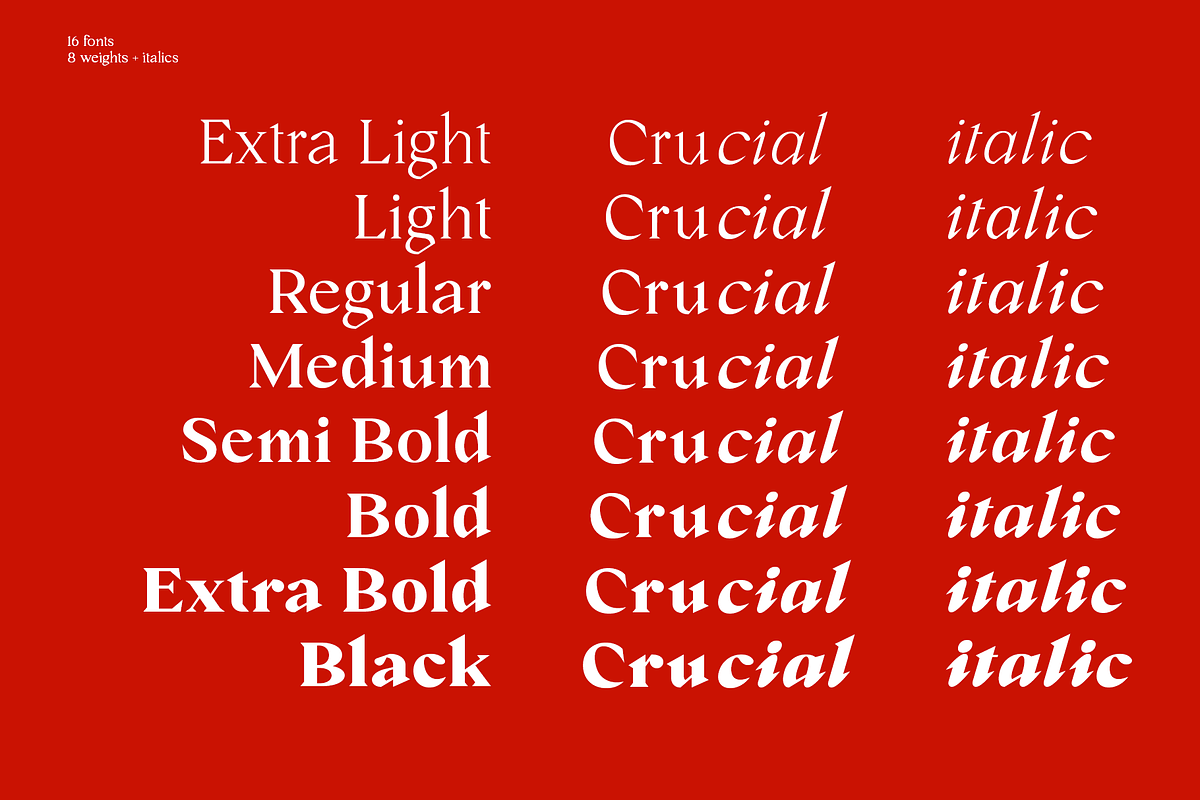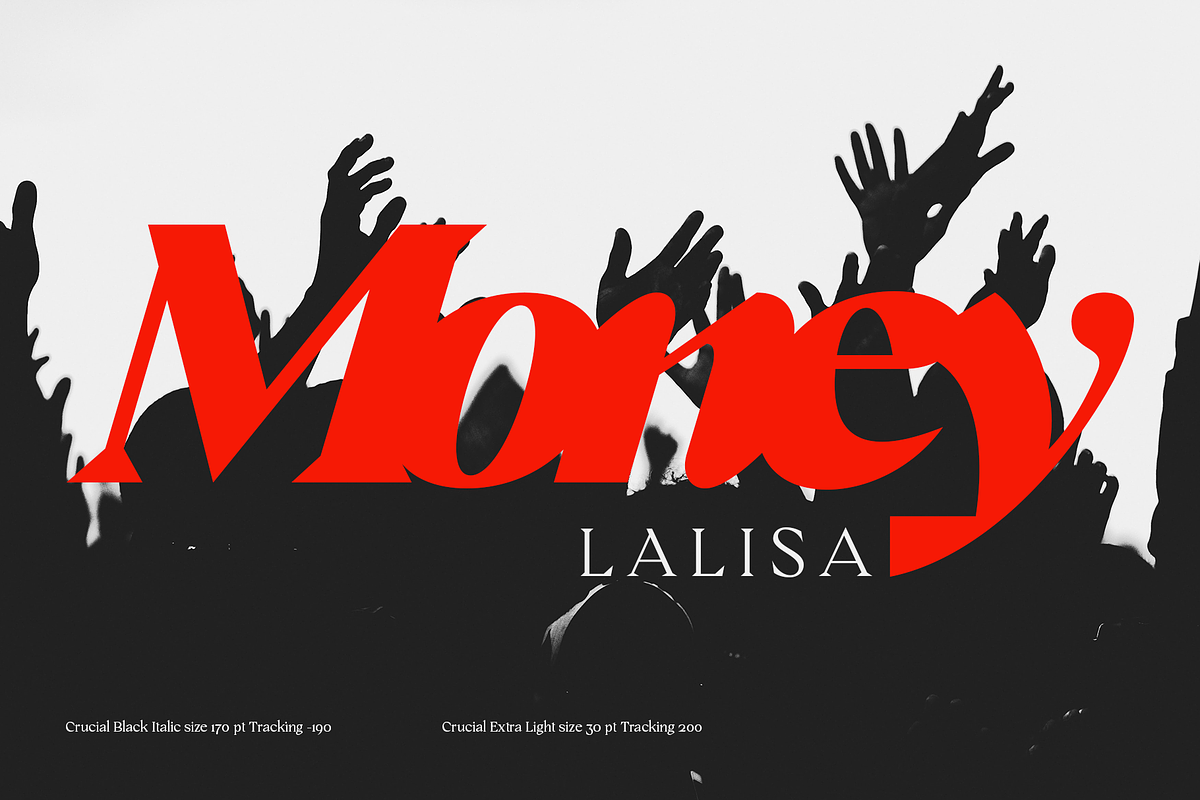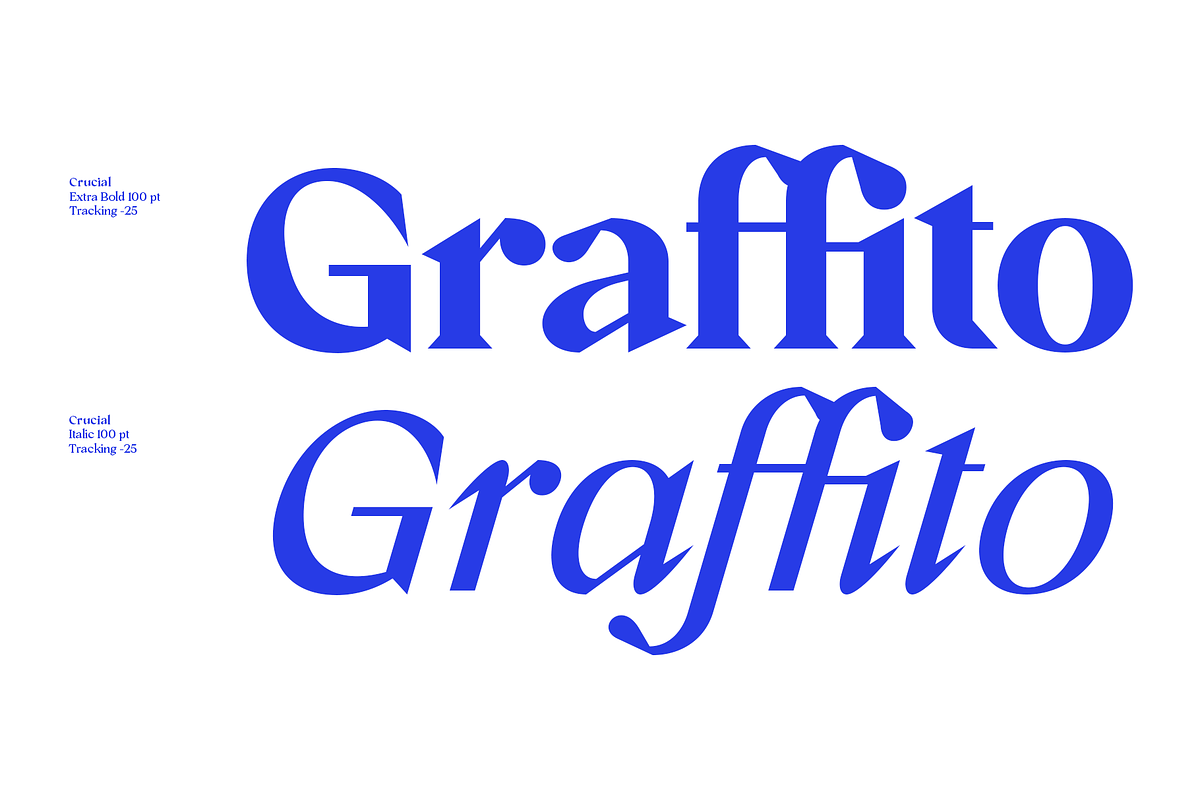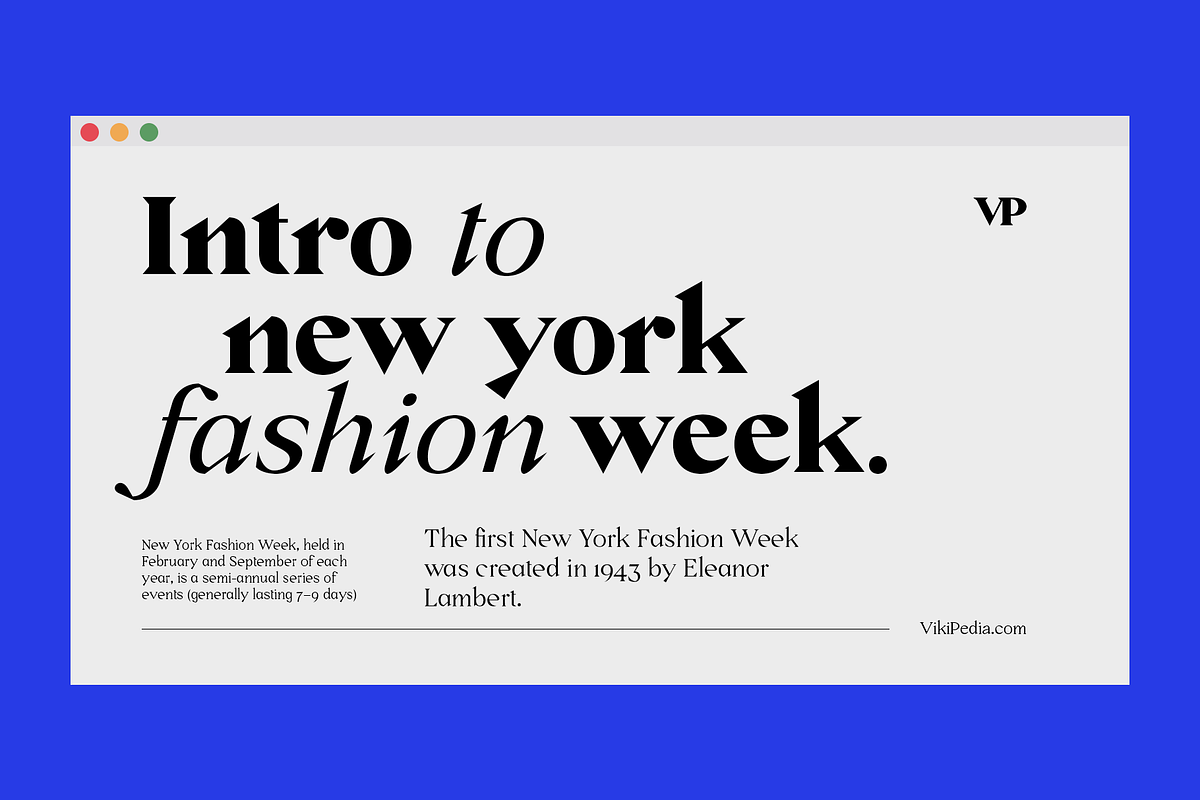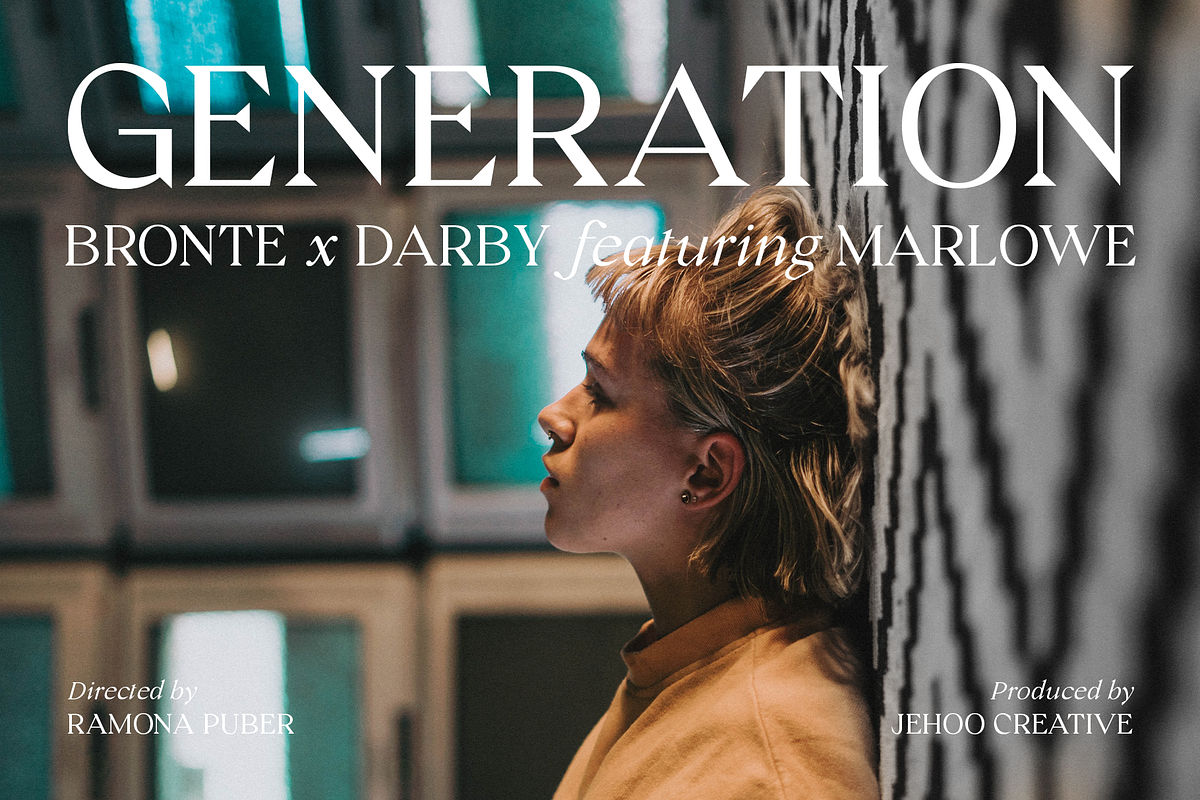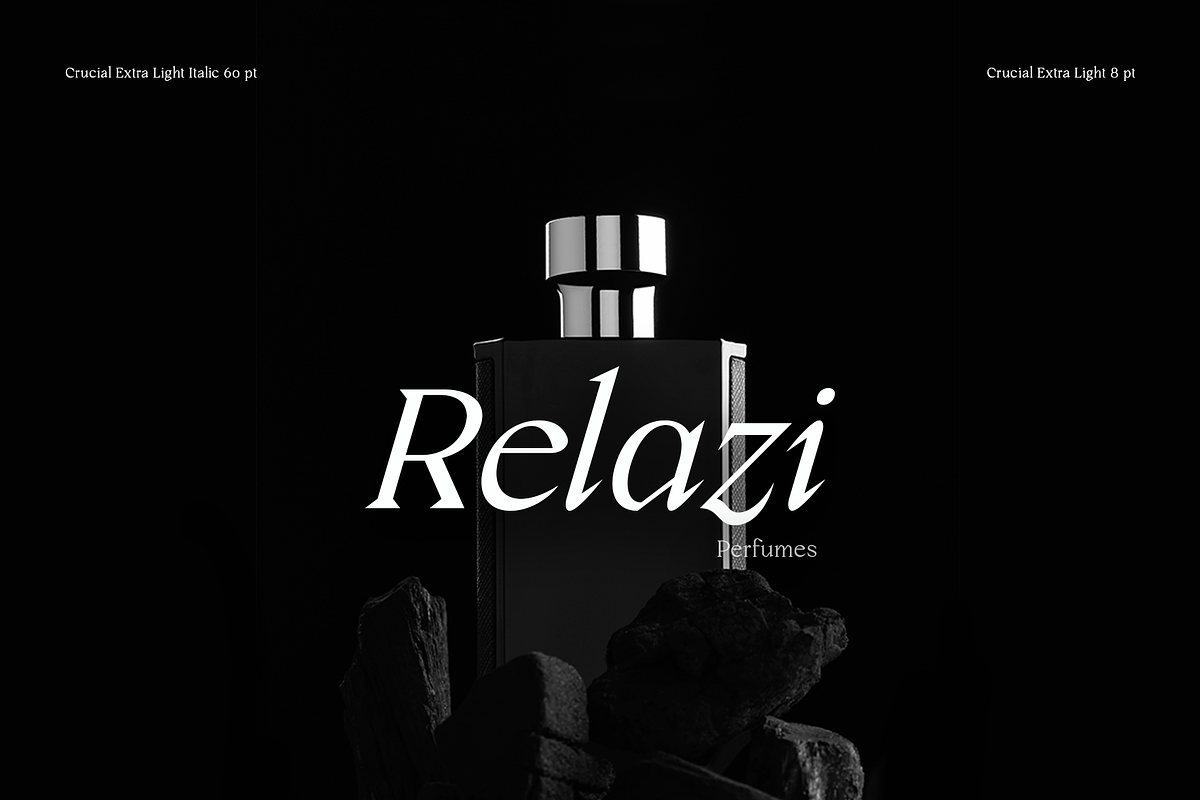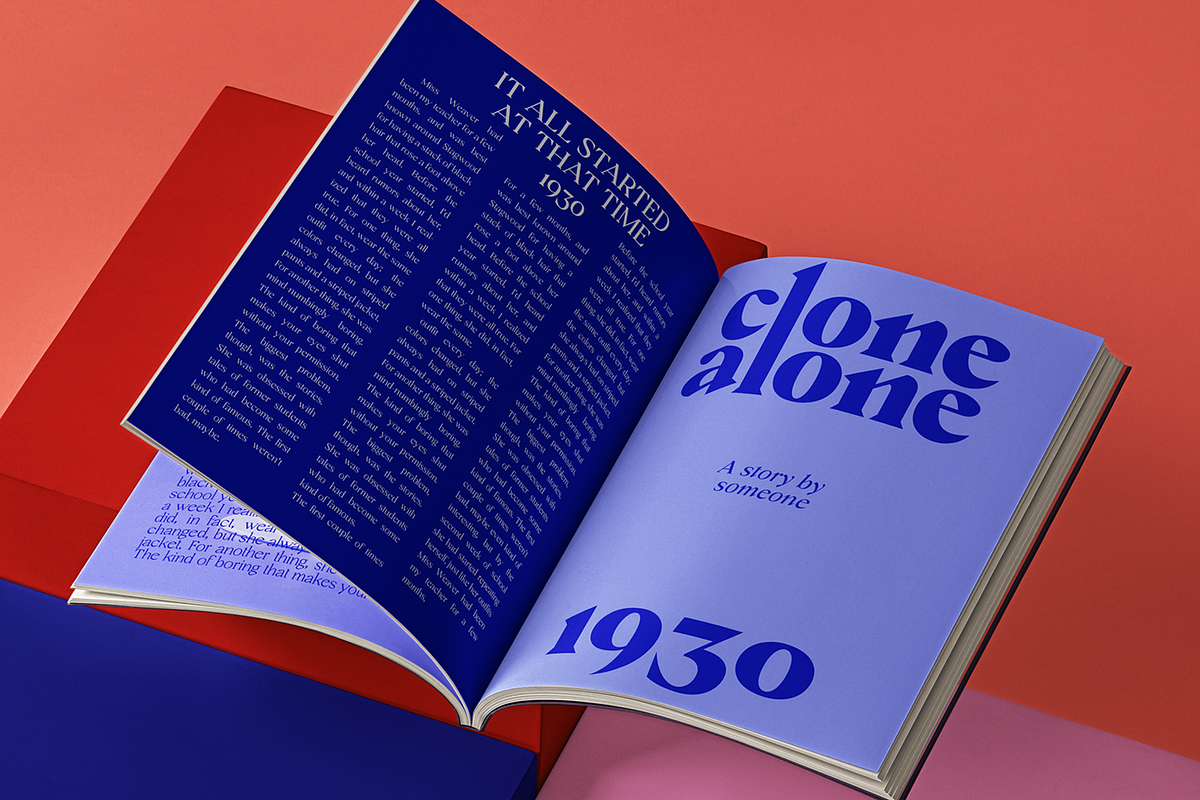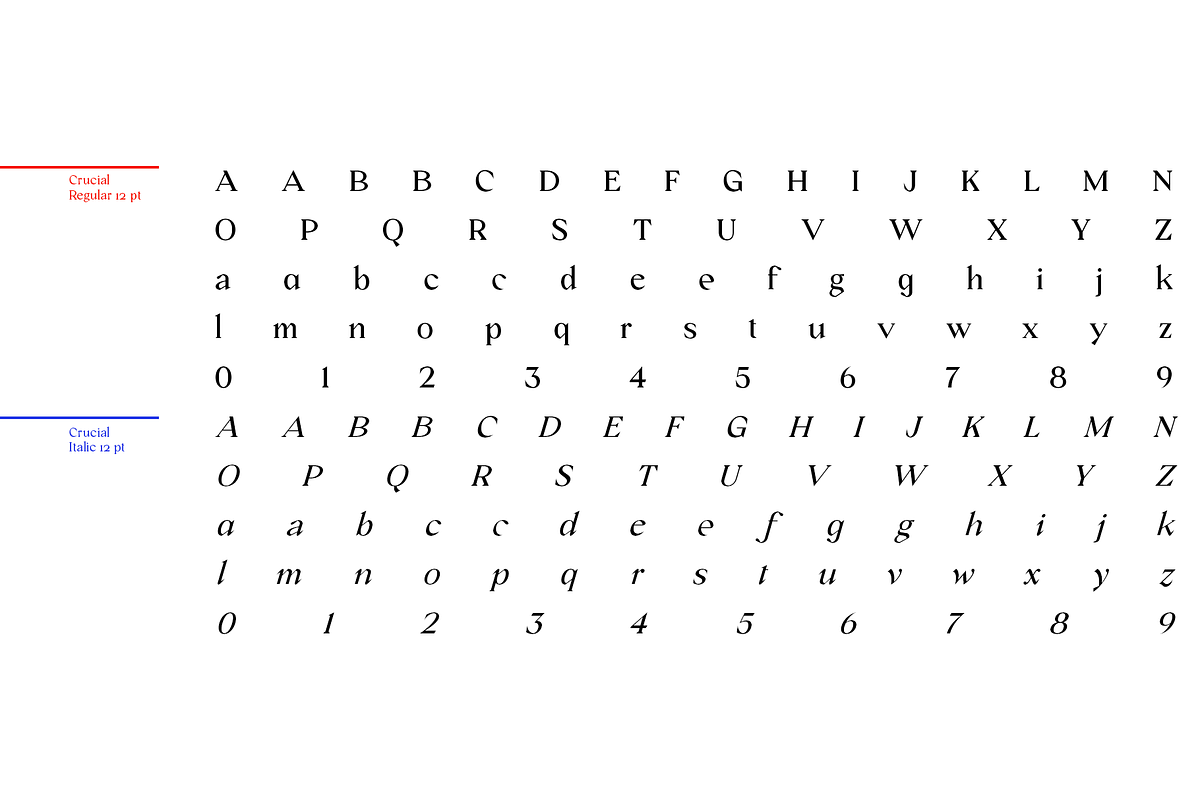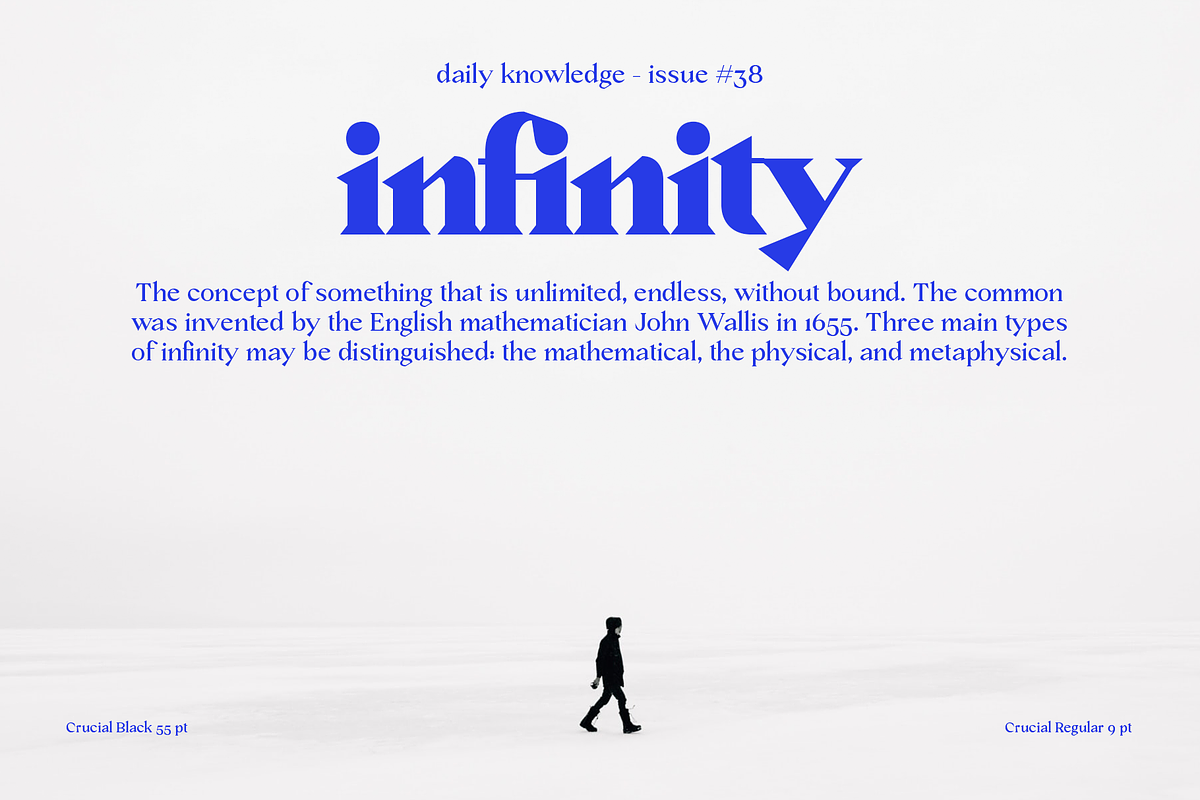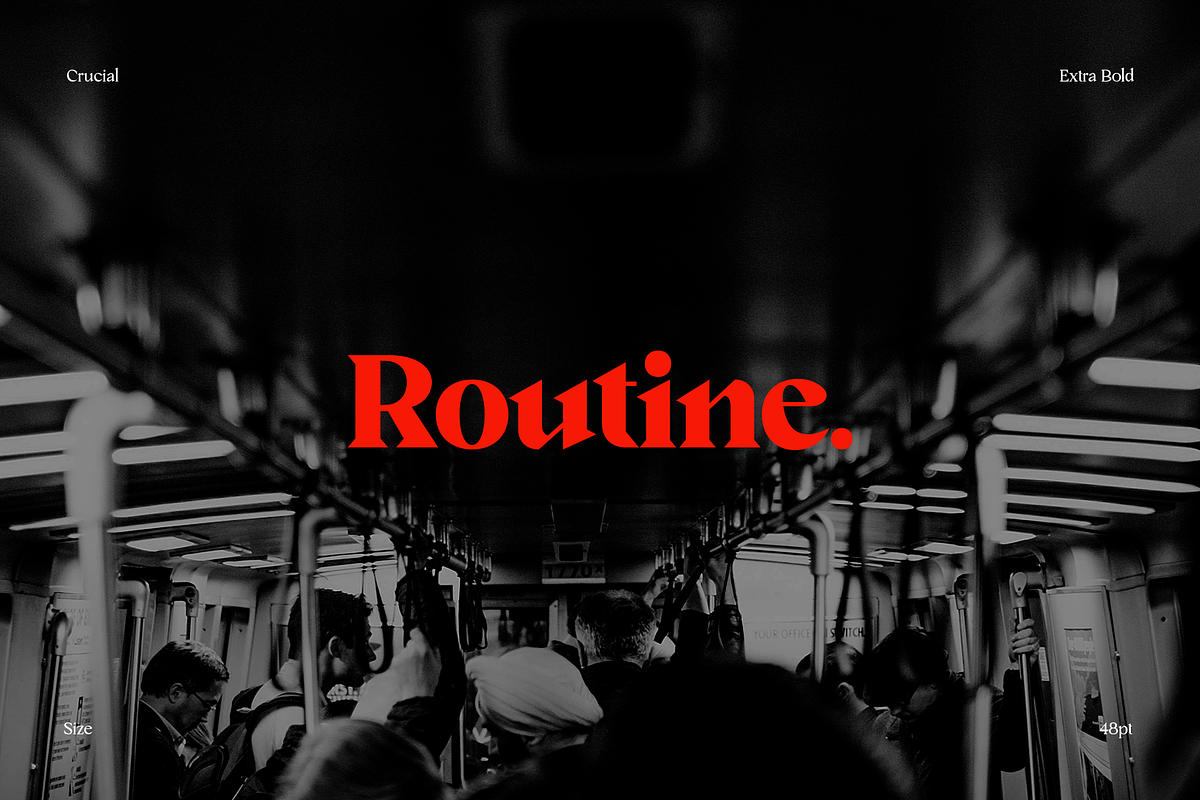
Crucial Sharp Serif Family + Italic
Sharp and bold are the right words to describe Crucial Typeface.
Crucial is a serif typeface that has a pointed tip so that each piece of character gives a bold and elegant impression. Having 8 weights and each weight packaged in an elegant Italic set, this typeface will add boldness and elegance to your designs.
Crucial can be used for a variety of design styles. It is suitable for strong-spirited designs as well as for a more striking and classy editorial look.
There are many useful features in this typeface including aalt, frac, league, lnum, locl, onum, ordn, salt, sinf, ss01, ss02, ss03, subs, sups, kern.